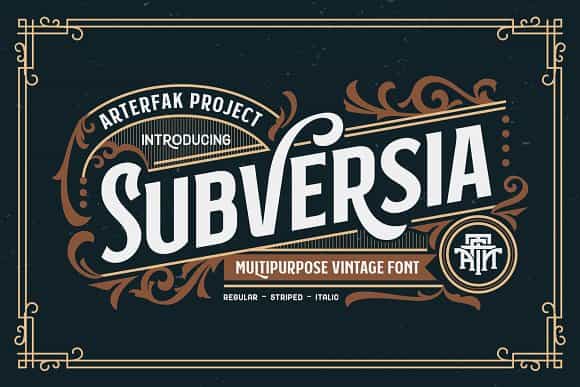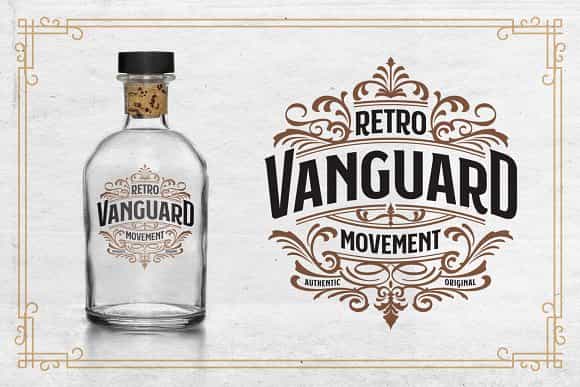
Introducing Subversia Font. It is created by Arterfak Project, it is a paid font that was sold on creativemarket but now it is free for download. Originated from sport and the Victorian style. Created with the classy and stable shapes to make it look modern. – Ideal for your designs such as poster, flyer, t-shirt, logo, vintage logo and logotype; signage branding magazine even body text.